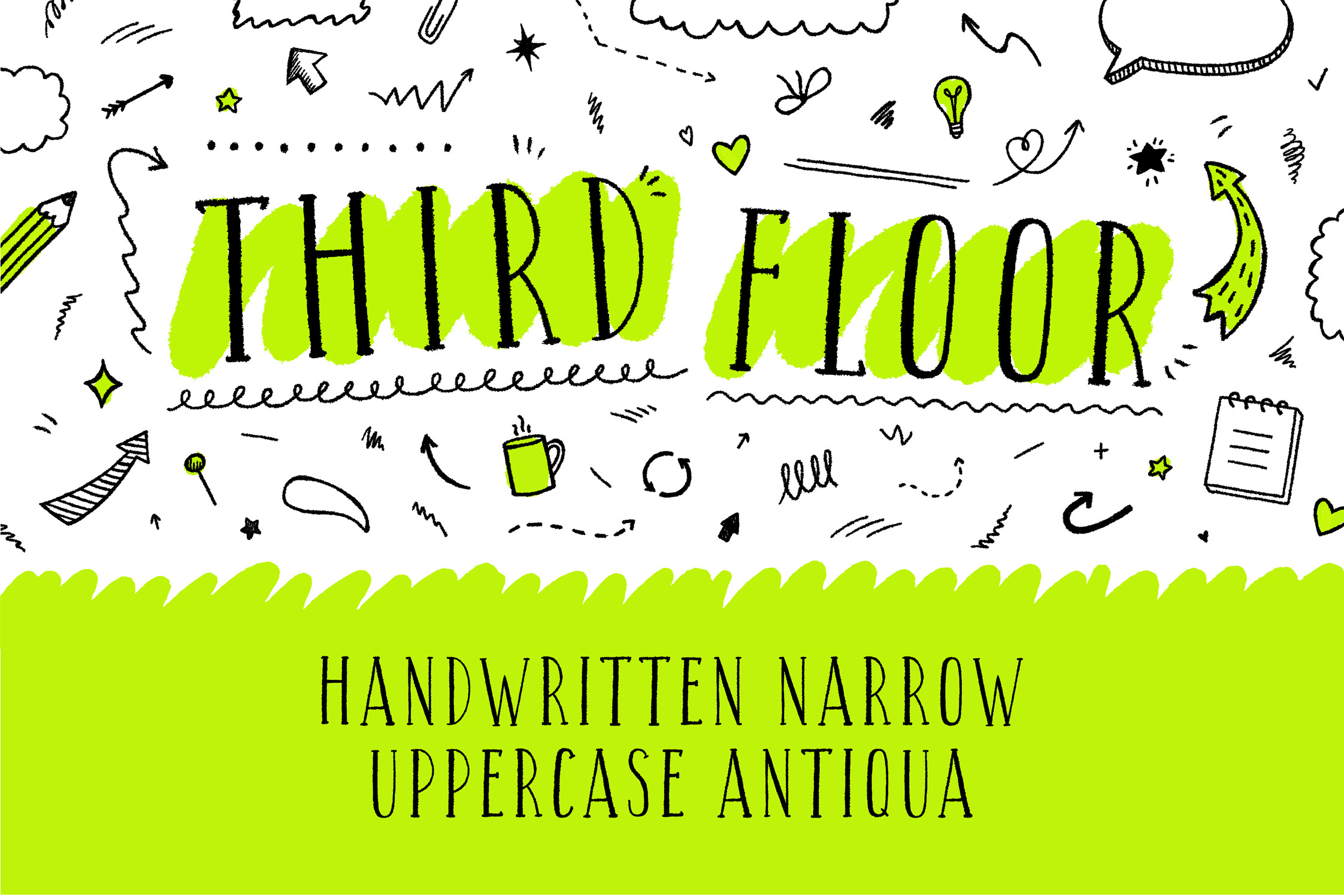
Third Floor Latin & Cyrillic font
Third Floor is a handwritten narrow uppercase font for grungy or funny children's design. Great for bullet journal headlines, for book and planner covers. This typeface includes latin and cyrillic characters, numbers, punctuation and diacritical marks - 258 glyphs in total.